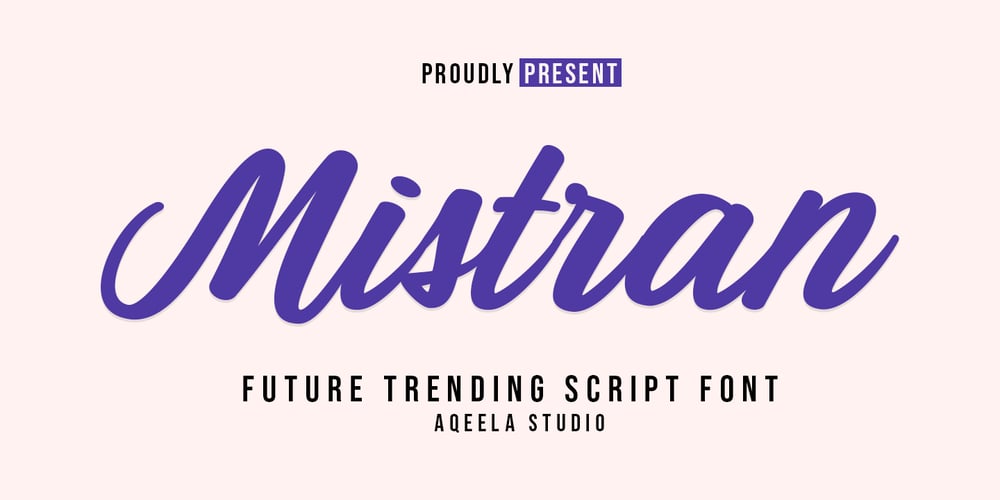
Mistran Font Family was designed by Muhammad Nasir and published by Aqeela Studio. Mistran contains 1 styles and family package options. The Mistran Script Font 2025 is a cutting-edge typeface that merges classic elegance with futuristic innovation. It features fluid, calligraphic strokes that mimic the natural flow of a pen, paired with subtle modern accents like angular flourishes and dynamic ligatures. Perfect for luxury branding, editorial designs, or wedding invitations, Mistran Script balances vintage charm with contemporary minimalism. Its versatility shines through in both digital and print mediums, delivering a sleek yet organic aesthetic. Enhanced with smart OpenType features, it supports seamless letter connections and multilingual glyphs, making it a go-to choice for designers seeking sophistication with a forward-thinking edge.